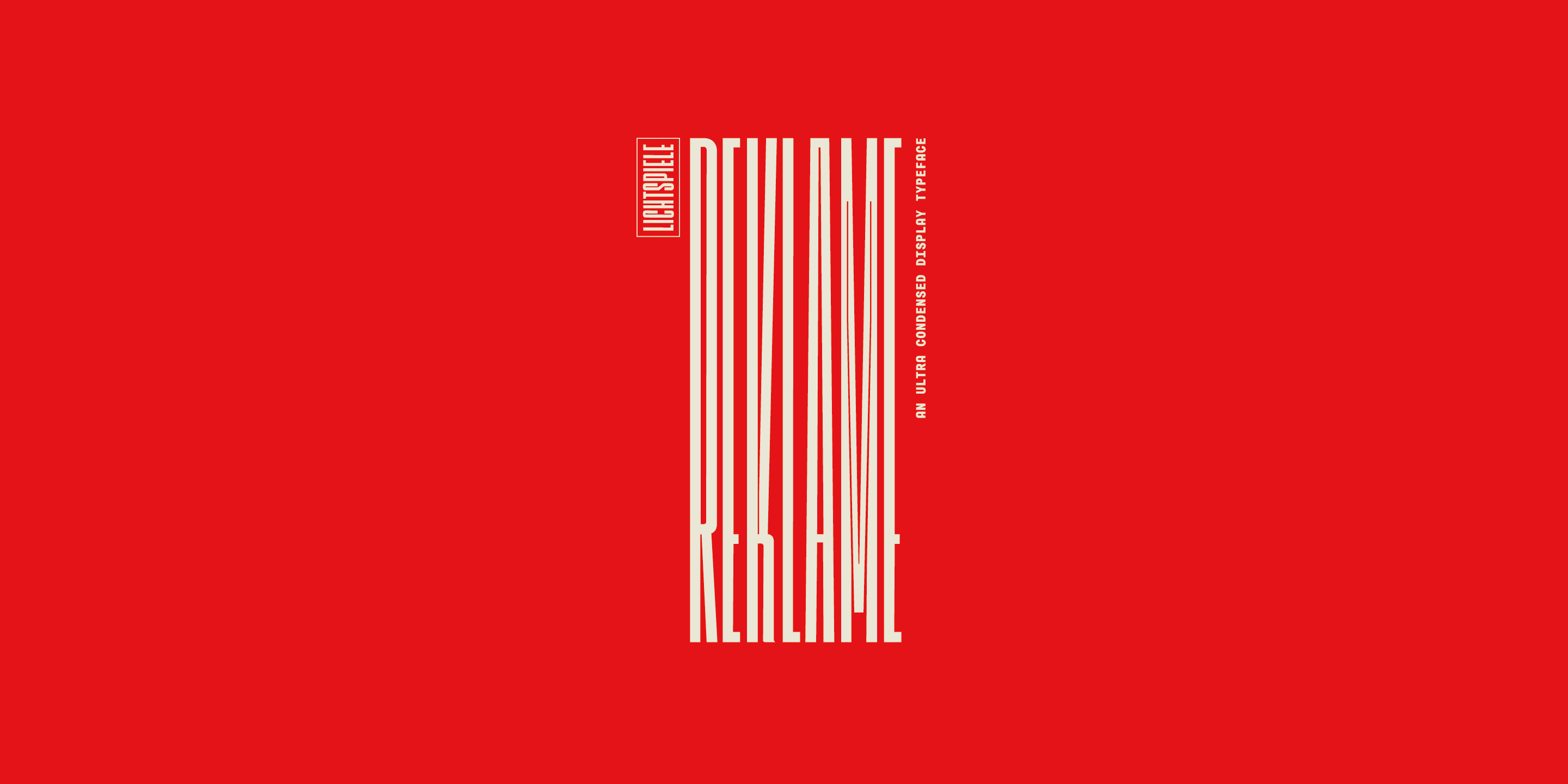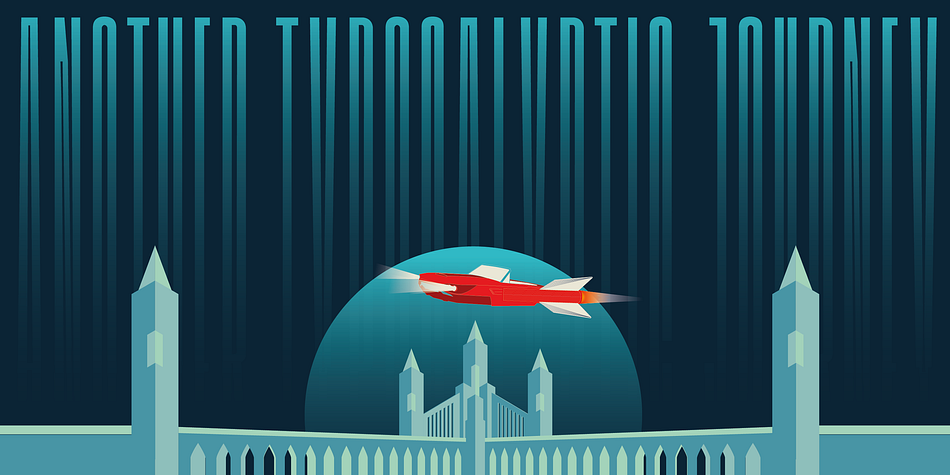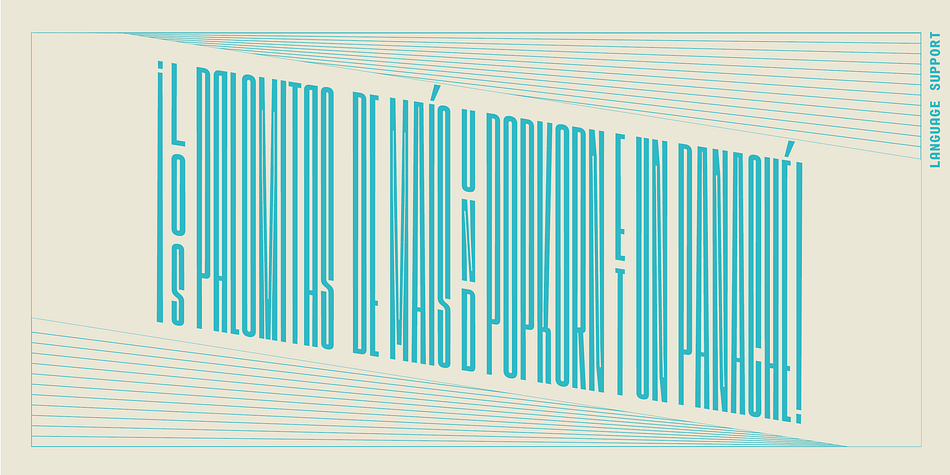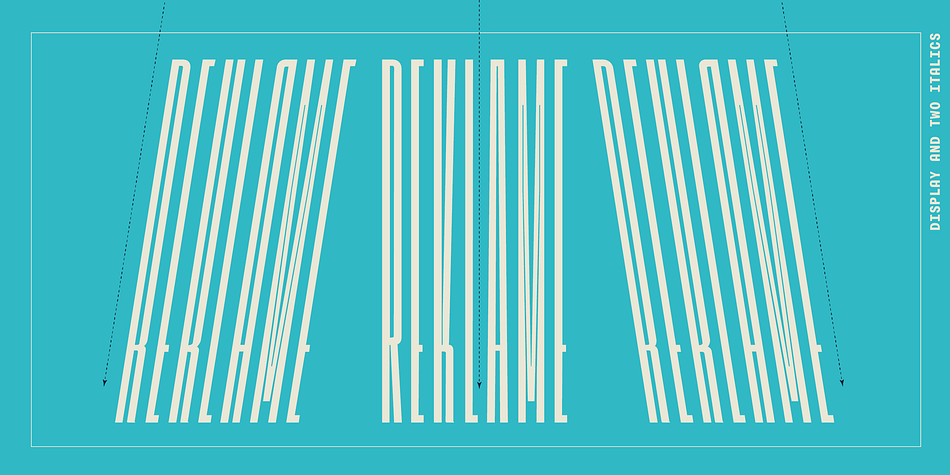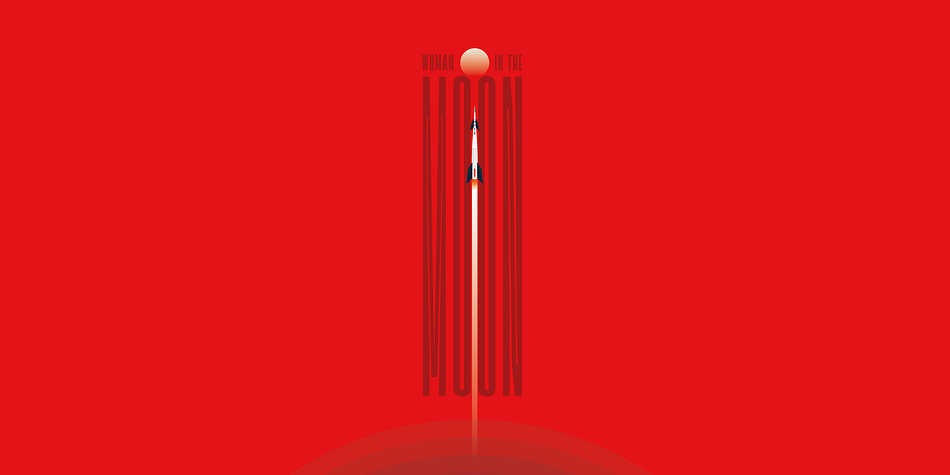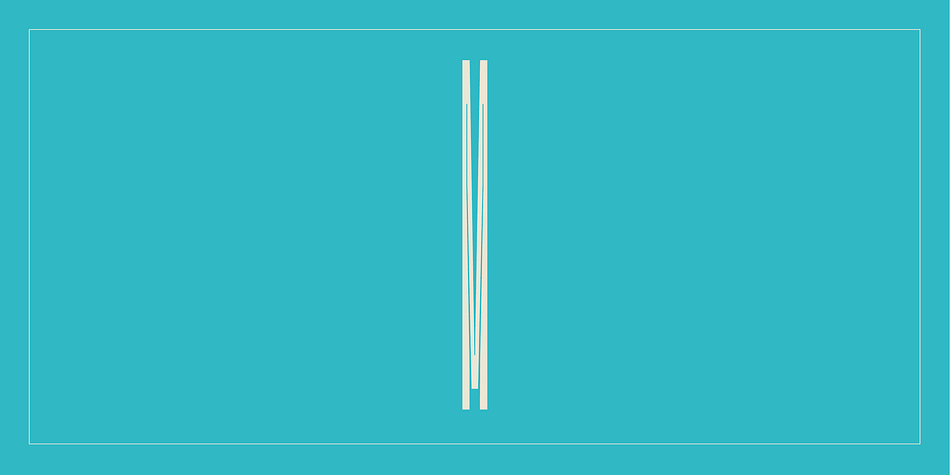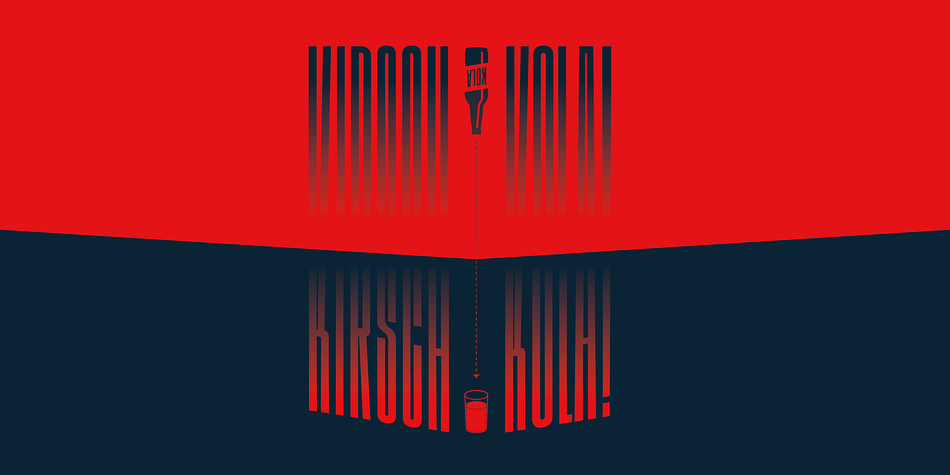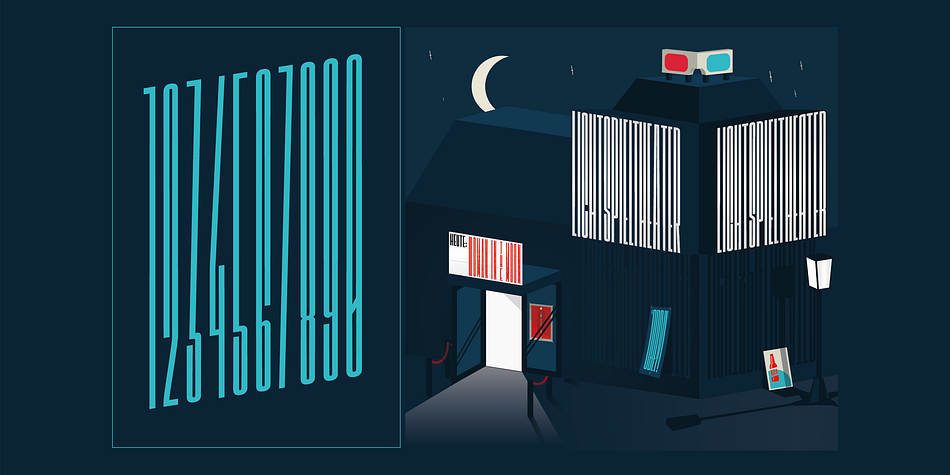
Designed by Stefan Huebsch, Lichtspiele Reklame is a retro and display sans font family. This typeface has three styles and was published by Typocalypse.
Lichtspiele Reklame is the ultra condensed version of Lichtspiele inspired by the 1920s — the golden age of cinema — where neon lights and marquee letters decorated cinema facades.
Lichtspiele Reklame is crafted for large narrow formats and contains the display font and two italics (italic & contra-italic), like in these 20s, a time where movie announcements were shown on huge so called Litfaßsäulen.